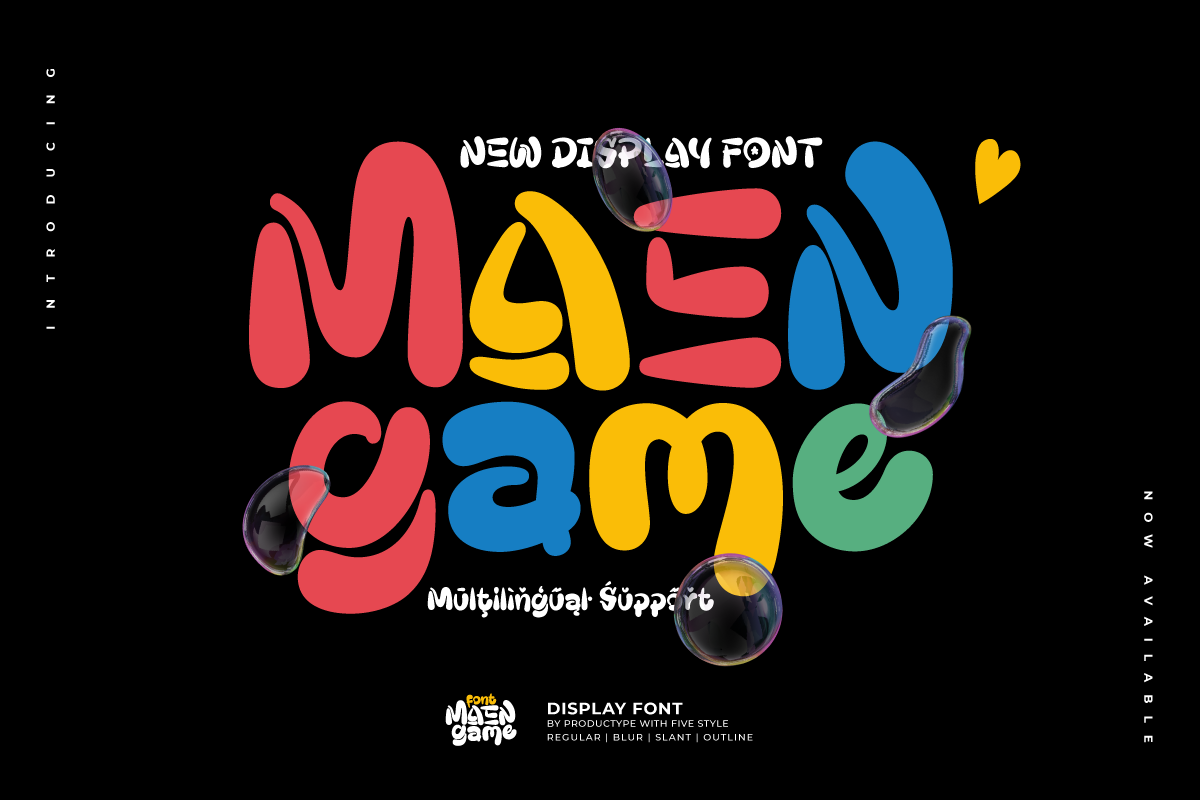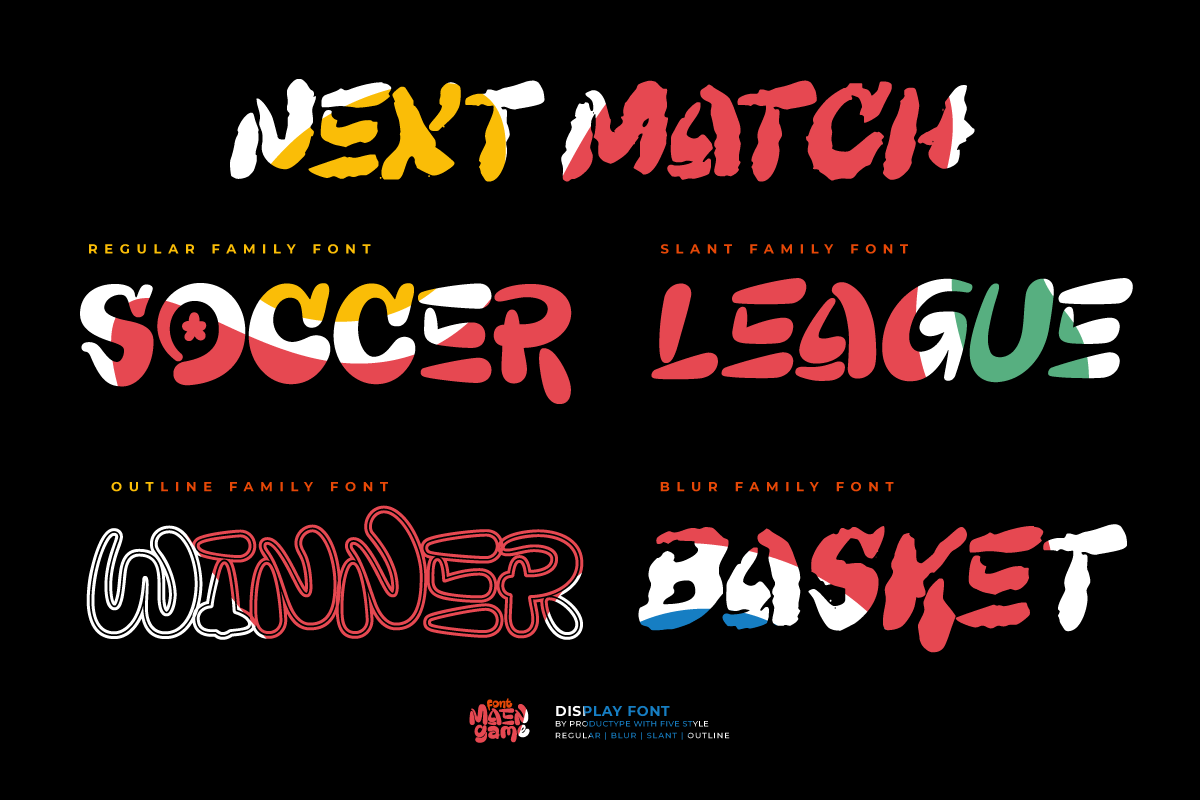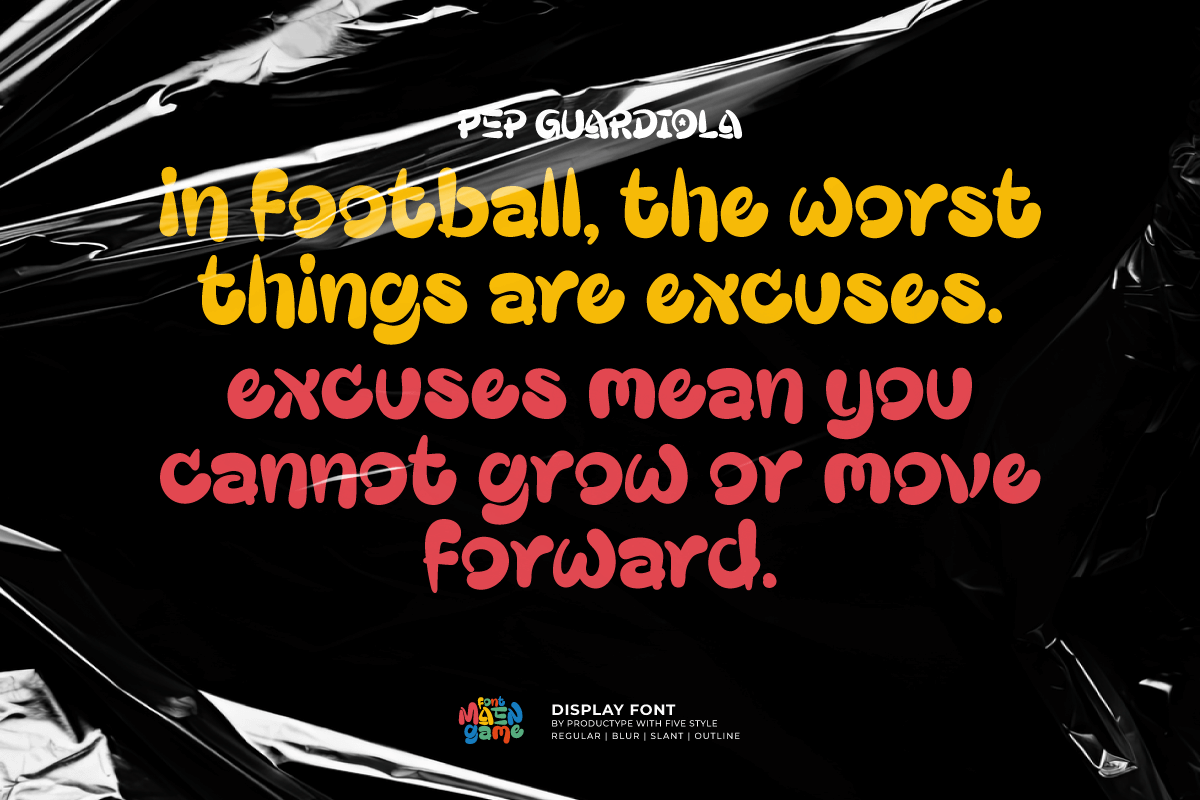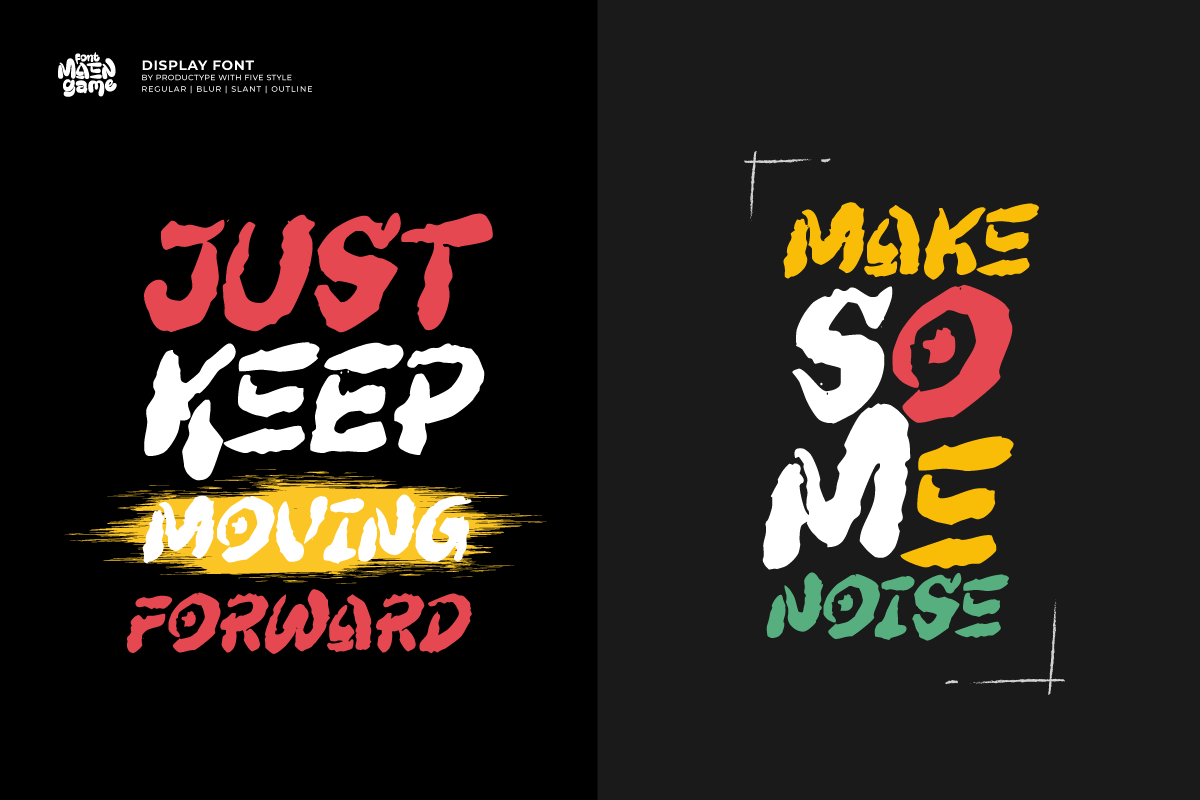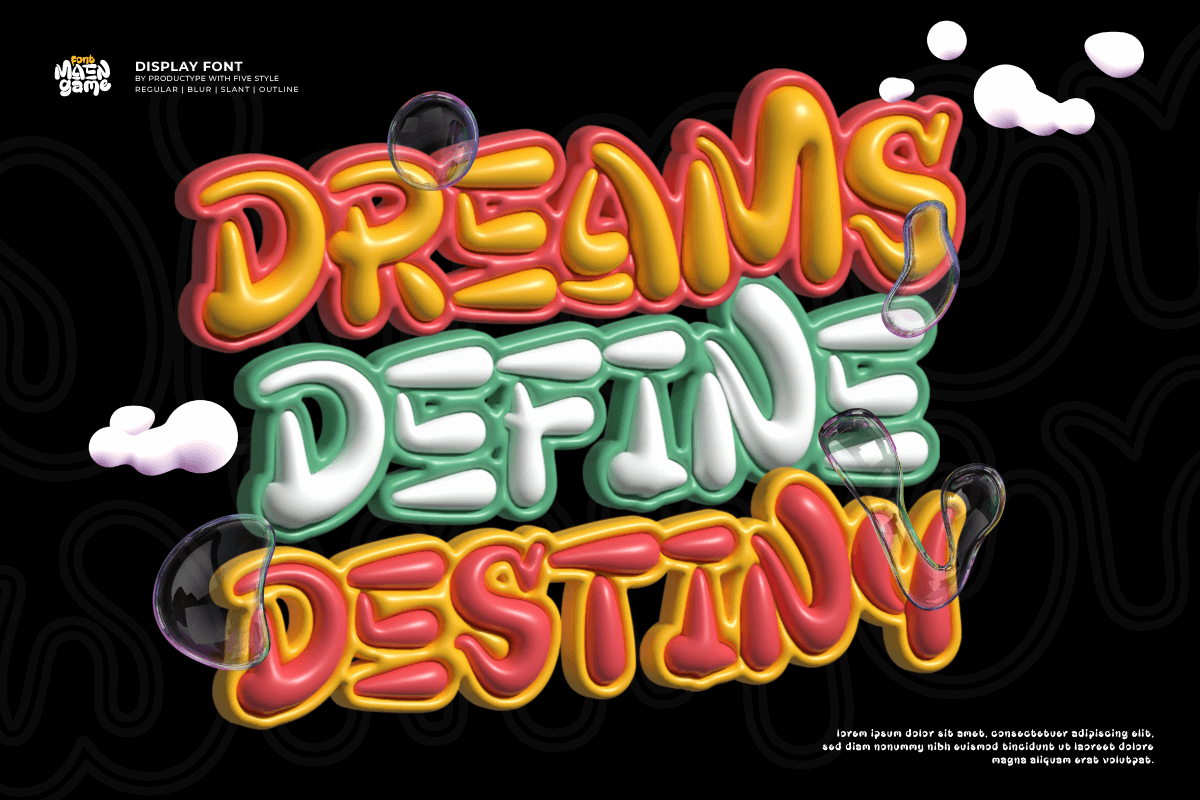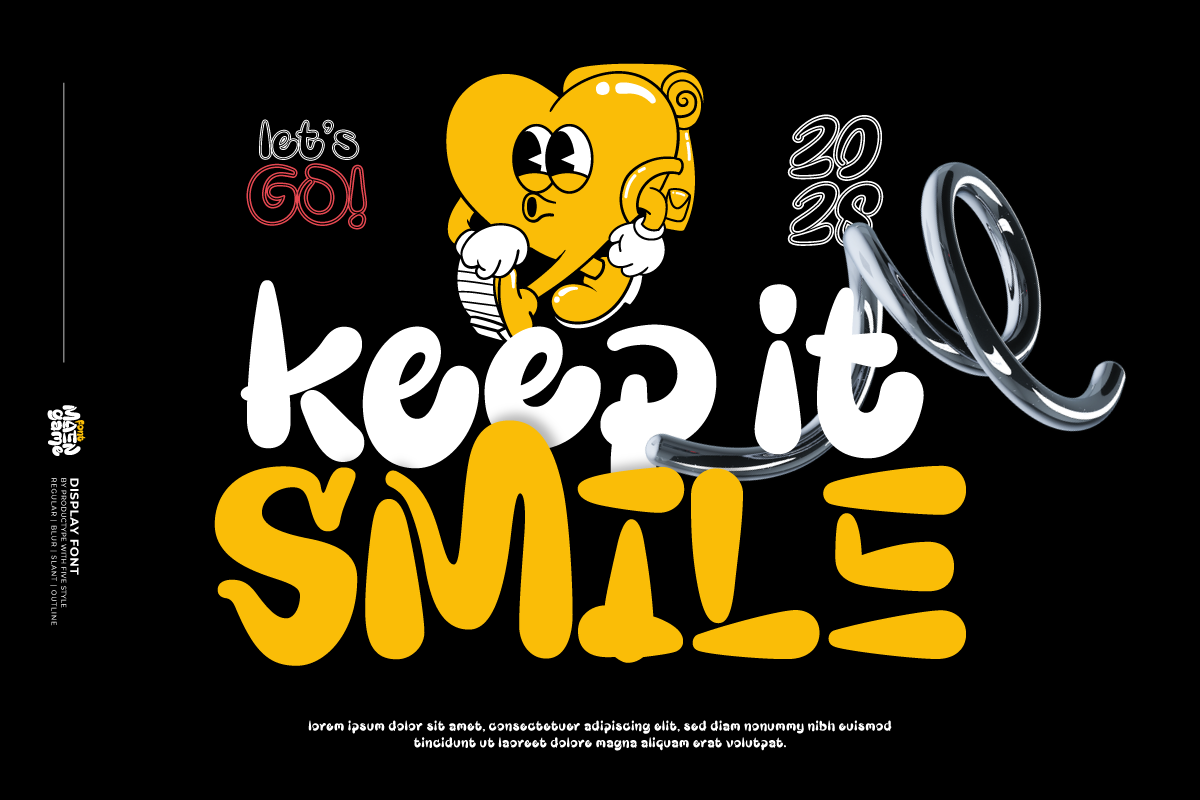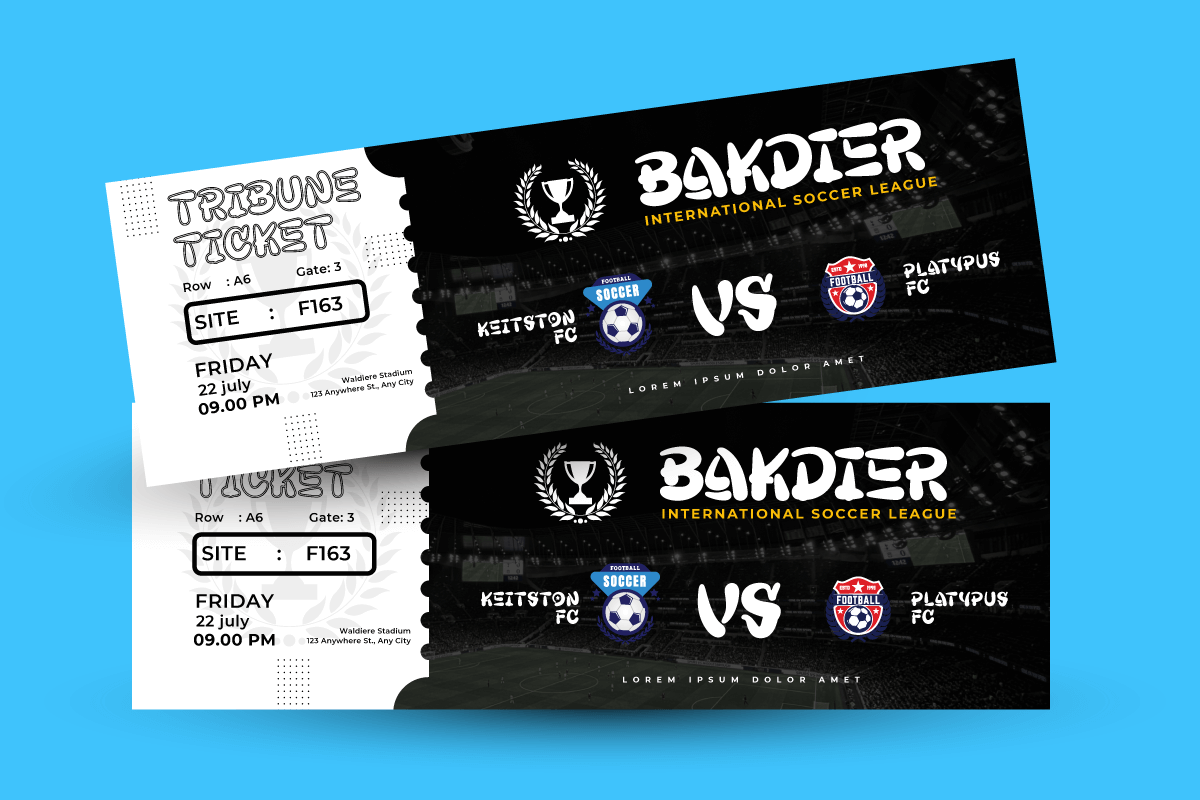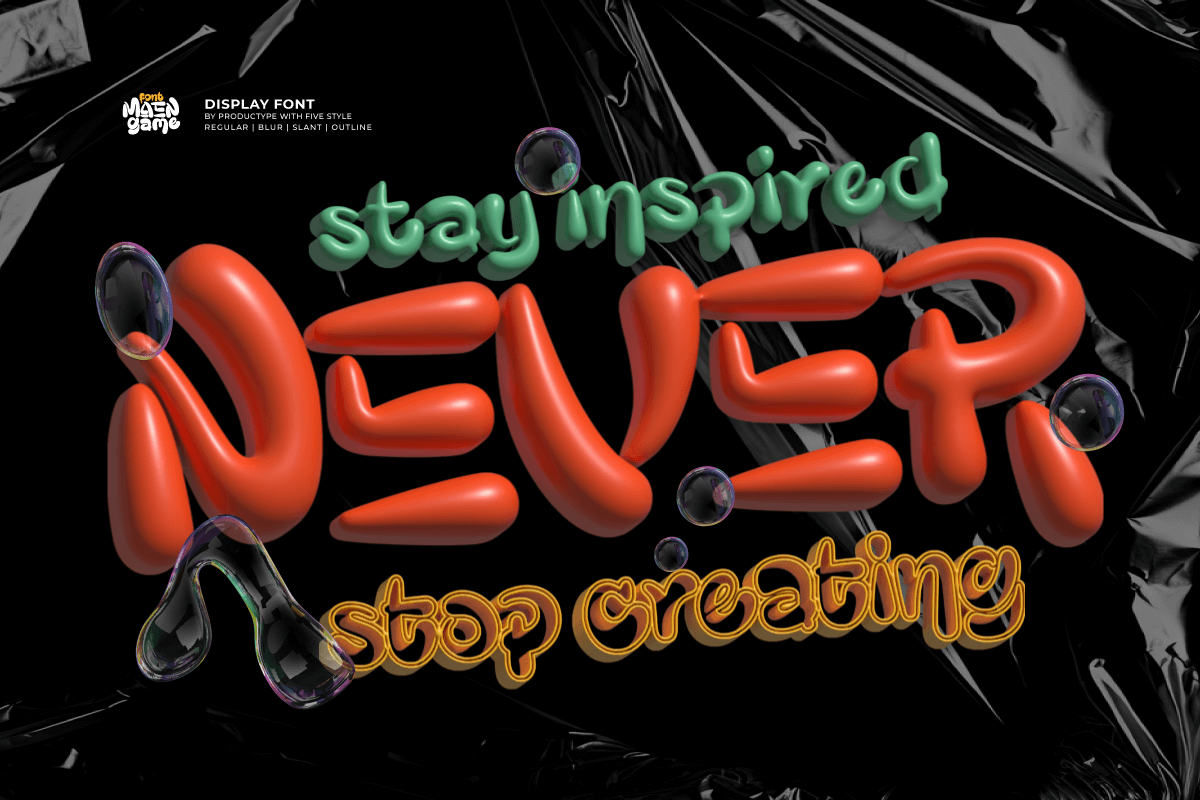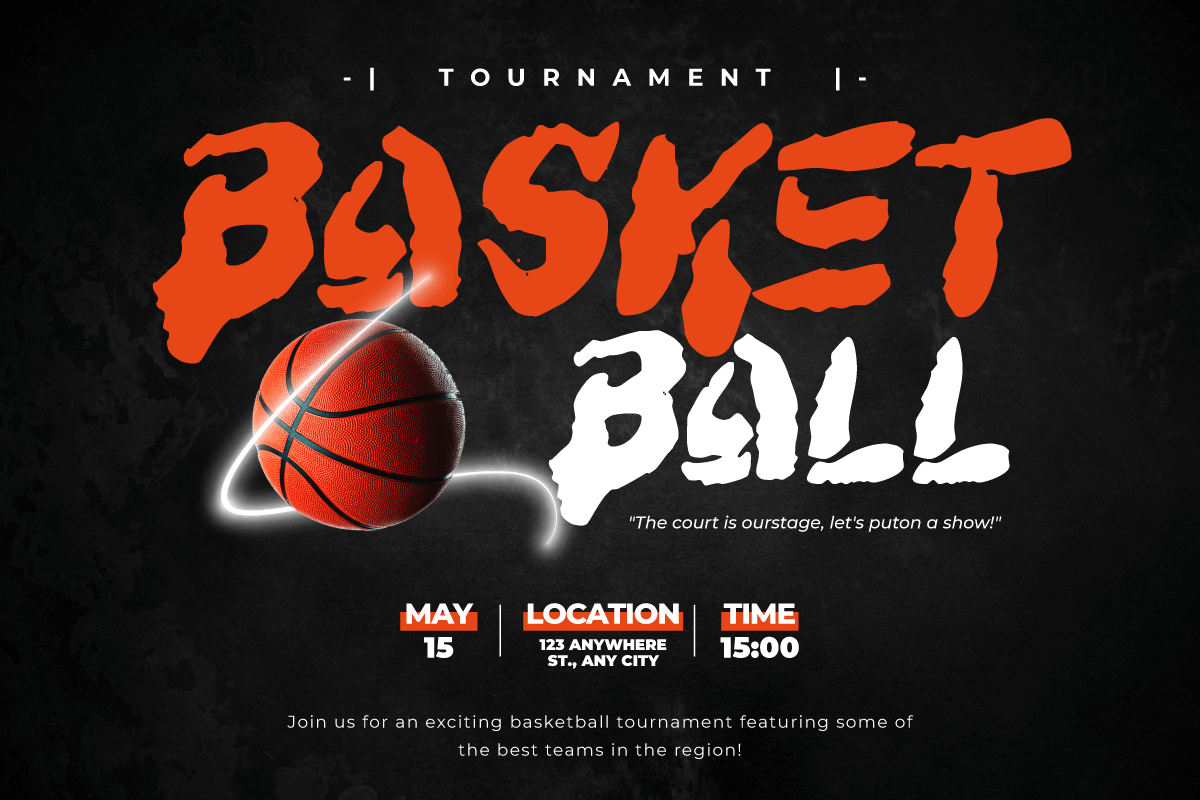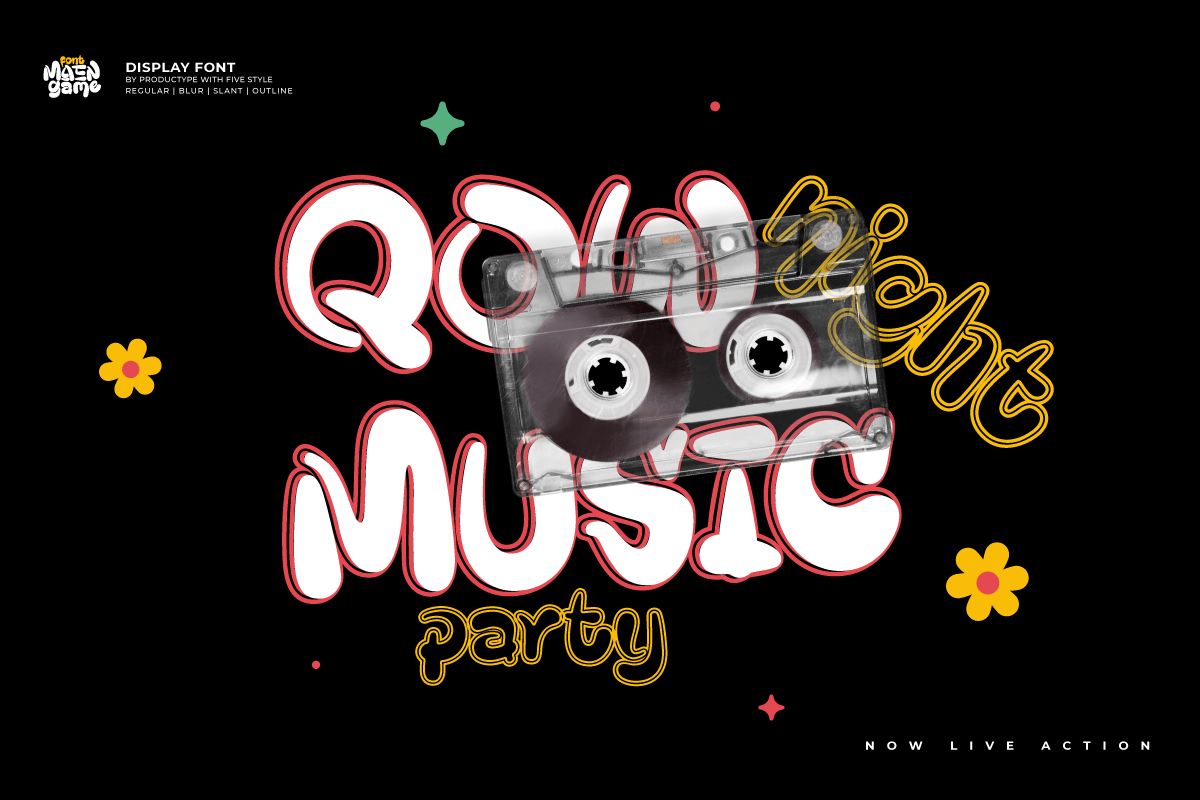
Maengame – Display Gaming Font
REGULAR
SLANT
OUTLINE
OUTLINE-SLANT
BLUR
Meet Maengame Font Display, Bring Fun and Power to Your Designs! Maengame is not just a font; it’s a gateway to a world of joy and power in your designs. With eye-catching display themes and a strong game style, Maengame brings a unique touch to your projects.
Inject a fun twist into each character with a bubble-filled design, adding a fun element to each letter. Maengame also brings a sense of courage and resilience, making your projects stand out with passion.
Maengame is the perfect solution for projects that require a unique touch. Whether you’re working on a bold display, a lively game, or an entertaining event, this font ensures that every design carries unforgettable charm.